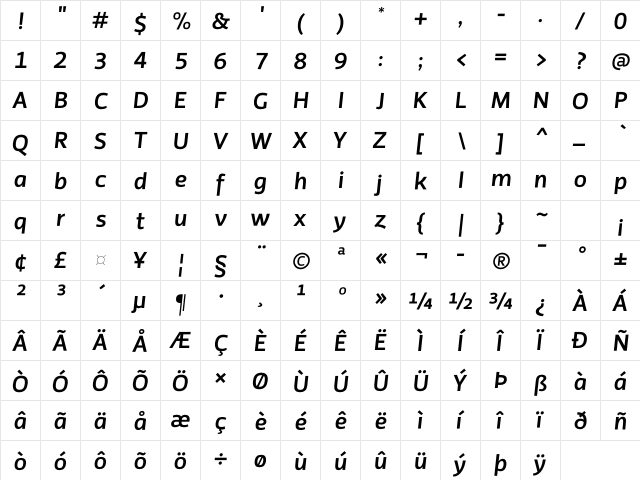
PrivaThreeItalicPro Regular
Design Context for PrivaThreeItalicPro Typeface
PrivaThreeItalicPro is a composed and adaptable typeface that performs quietly and consistently across a wide range of design contexts. The dynamic lean of this cut emphasises speed and emphasis in any layout.
Pro Tip: Try PrivaThreeItalicPro for annotation and caption copy alongside an upright companion — the contrast in angle creates a dynamic but ordered typographic system.